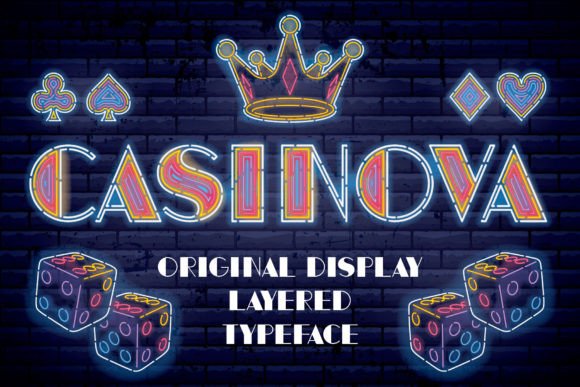
Introducing Casinova Font: A Vintage Label Font with a Touch of Glamour
Have you ever been in the middle of a design project, and suddenly, you just can’t seem to find the right font? I recall a particularly frustrating experience while working on a vintage-themed poster design. My client wanted a font that screamed ’50s glamour, but everything I tried seemed either too modern or too bland. That’s when I stumbled upon Casinova Font, a hidden gem that instantly elevated my design.
A Quick Overview of Casinova Font
Casinova Font is a vintage label font inspired by mid-20th-century signs and neon casino signs. This font family comes in two styles: Regular and Color, offering versatility for various design projects. Additionally, it features six layer effect styles, which you can preview to see how they can enhance your designs.
• ✨ Unique vintage aesthetic that’s perfect for themed designs
• ⚡️ Highly versatile with two styles and six layer effects
• 💡 Great for posters, T-shirts, labels, logos, and more
• 🤔 Some layer effects might require a bit of tweaking for optimal results
• ⚠️ Limited language support, mainly focused on English and basic Latin characters
Casinova Font was created with the intention of capturing the essence of mid-20th-century signage and the allure of neon-lit casinos. The designer aimed to bring back the glamour and charm of a bygone era, making it perfect for designers looking to infuse their work with a vintage flair.
What type of designs is Casinova Font best suited for? Casinova Font is ideal for vintage-themed designs such as posters, T-shirts, labels, logos, and any project requiring a mid-20th-century aesthetic.